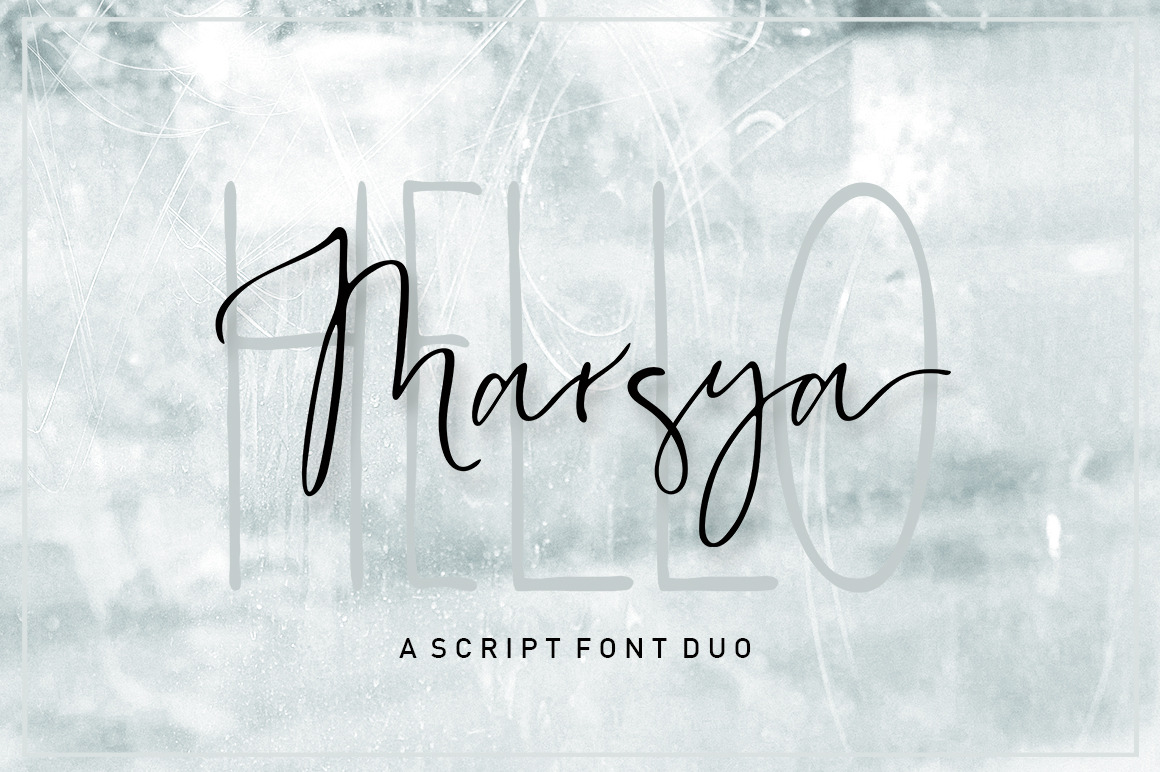
Marsya Script Font Duo
Marsya Script is a brush font with a lot of alternates & ligatures., luxurious and elegant with a dancing baseline. Also available Marsya Sans to help you mix and match it to fit your creative work in harmony. perfect for Branding, Logos, Greeting Cards, Wedding Stationery, Quotes etc.
It comes with a handy set of Opentype Stylistic Alternates, Ligatures and multiple language support. To enable the OpenType Stylistic alternates, you need a program that supports OpenType features such as Adobe Illustrator CS, Adobe Indesign & CorelDraw X6-X7, Microsoft Word 2010 or later versions.